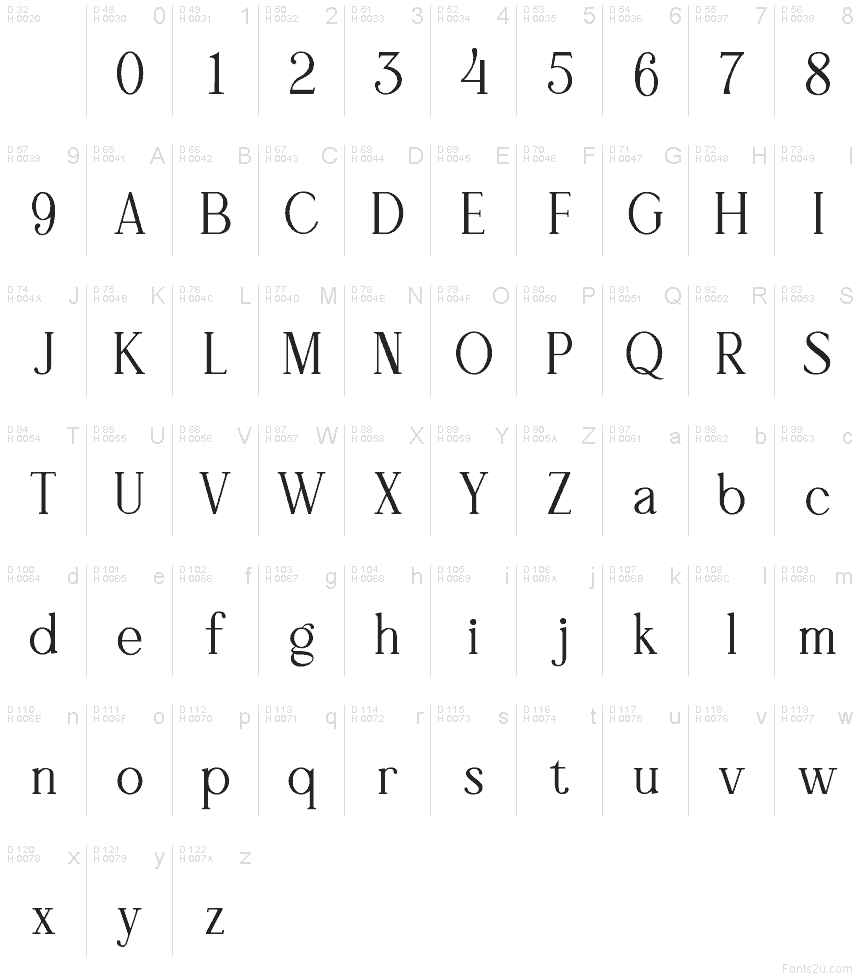
Vigofam Regular
Vigofam font is an elegant serif typeface created by Tezar Tantular that brings a traditional yet sophisticated touch. The font retains a formal and classy design approach while also demonstrating its modernity in its exceptionally high contrast. The silhouette presented by the letters can easily be put to good use for titles, body text, and captions.
This free serif font might complete certain branding projects suitable for businesses like law firms, consulting and accounting services providers, or even real estate companies. Magazines and books can benefit from this font for their headings as well as street banners used in promotional campaigns.